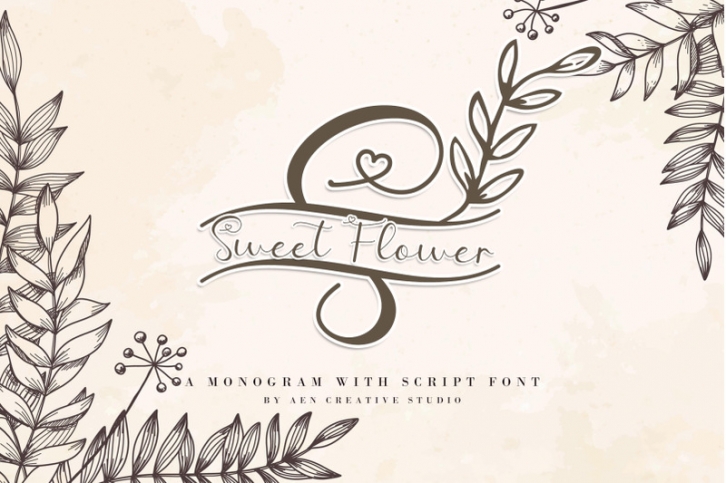
Sweet Floral Monogram FONT Download
Sweet Flower Monogram is a ravishing duo font (script and decorative). Add this romantic and lovely looking font to each of your love letters, wedding invitations or favorite design ideas, and you will be astounded by the outcome. Sweet Flower Monogram is PUA encoded which means you can access all of the glyphs and swashes with ease!
Sweet Flower Script Features :
• (a-z) titling, (a-z) swashes, ligature
• (A-Z) alternates
• Support multilingual; ä ö ü Ä Ö Ü ß ¿ ¡
• This font is PUA encoded which means you can access all of the
playful glyphs, swashes, and ligatures with ease!